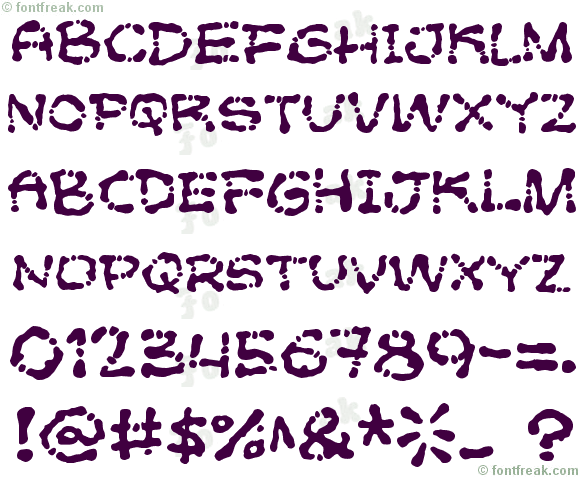
Poft Sarade
The Poft Sarade font, created by Jacob Fisher, is a unique display typeface that draws attention with its quirky aesthetic. This freeware font possesses a distinct personality, making it an excellent choice for various creative projects. The visual characteristics of Poft Sarade are marked by its irregular stroke weight and playful, uneven spacing, giving it a handcrafted feel that adds charm to any design. The decorative elements are reminiscent of organic forms, with playful curves and dots that enhance its visual appeal.
This font is particularly well-suited for a range of creative applications. Its whimsical nature makes it ideal for designing eye-catching wedding invitations that exude a sense of fun and individuality. Additionally, Poft Sarade works wonderfully for movie posters, where its distinctive style can capture the viewer's attention and convey the film's tone. Restaurant menus can benefit from this font as well, especially for casual dining establishments aiming to create a friendly and inviting atmosphere. Moreover, it serves well in children's book titles or covers, where a playful typography can resonate with young readers and their parents.
Targeted towards graphic designers, small business owners, and content creators looking to inject personality into their projects, the Poft Sarade font offers versatility without sacrificing style. The free availability of this font allows users to experiment freely, making it an attractive option for those on a budget. The Poft Sarade font free download opens the door to creative possibilities, enabling designers to explore its unique characteristics in their work. Ultimately, what sets this font apart is its ability to infuse any project with a sense of joy and creativity, making it a valuable addition to any designer's toolkit.